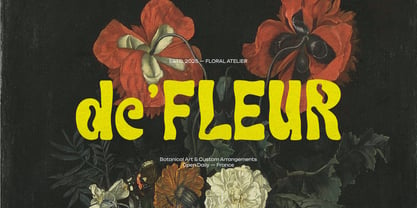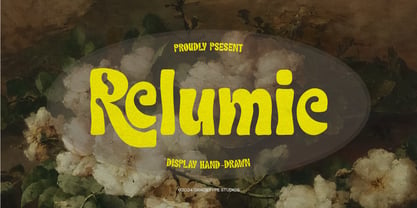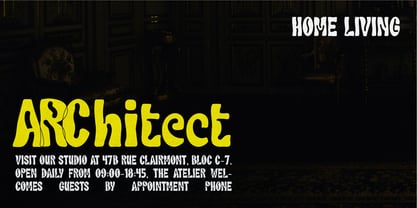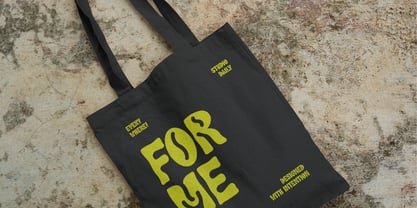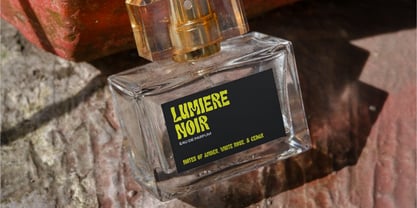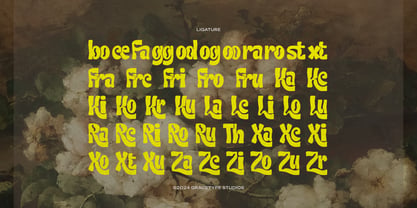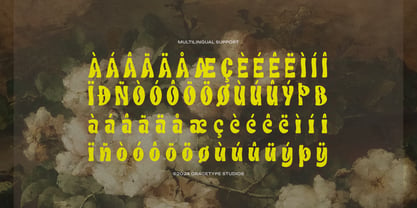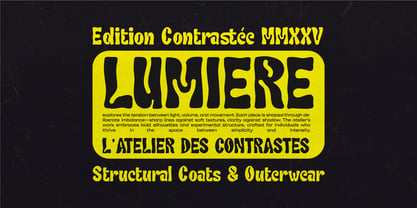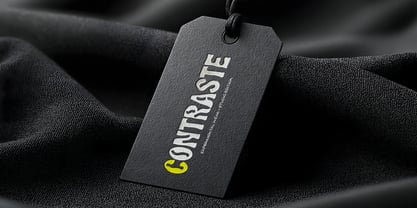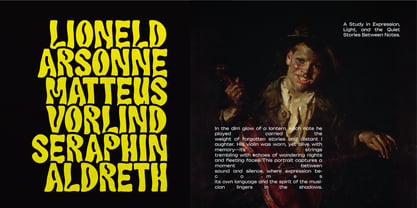
Relumie
by Tini Fitriani
Relumie | Display Hand Drawn, from Gracetypestudio, suitable for any projects such as: logos, branding projects, homeware designs, product packaging, mugs, quotes, posters, shopping bags, t-shirts, book covers, name card, invitation cards, greeting cards, label, photography, watermark, special events, and all your other lovely projects that need a Serif taste.